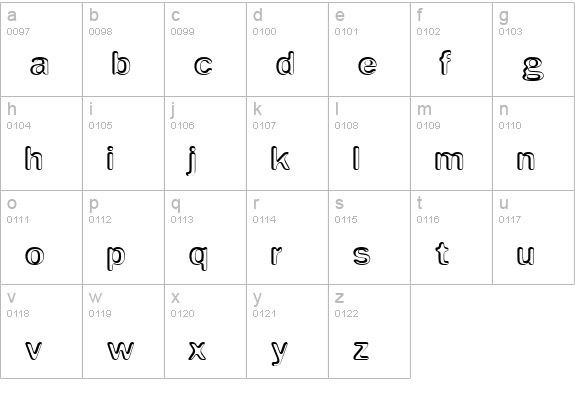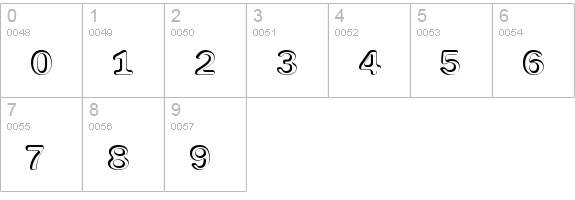
Impressed Metal font is a striking and unique typeface that will leave a lasting impression on your audience. This font is inspired by the art of metalworking, with its meticulously crafted and intricately detailed design. The letters are expertly etched and embossed, giving them a three-dimensional quality that adds depth and character to any design. What sets Impressed Metal font apart is not only its stunning visual appeal but also its versatility. This font can be used in a wide range of projects, from logo designs and branding to posters, packaging, and more. Its bold and commanding presence is perfect for making a statement and grabbing attention. One of the best features of Impressed Metal font is that it is free. Yes, you read that right! This font is freely available to download at FontsMarket.com. So not only can you enjoy the beauty and uniqueness of this font, but you can also do so without breaking the bank. Whether you're a professional designer looking to enhance your portfolio or a DIY enthusiast looking to add a touch of elegance to your personal projects, Impressed Metal font is the perfect choice. Its timeless and sophisticated design will elevate any project and make it truly stand out. So why wait? Head over to FontsMarket.com and download Impressed Metal font for free today. Let your creativity shine and leave a lasting impression with this remarkable typeface.